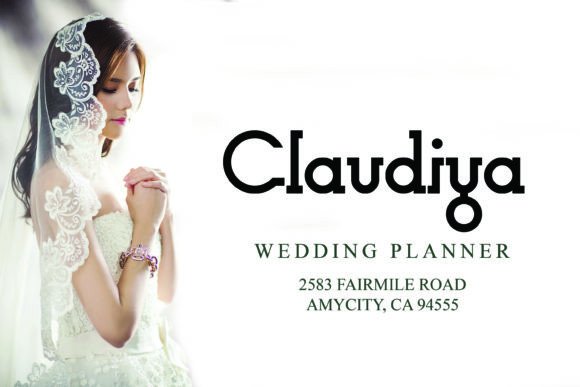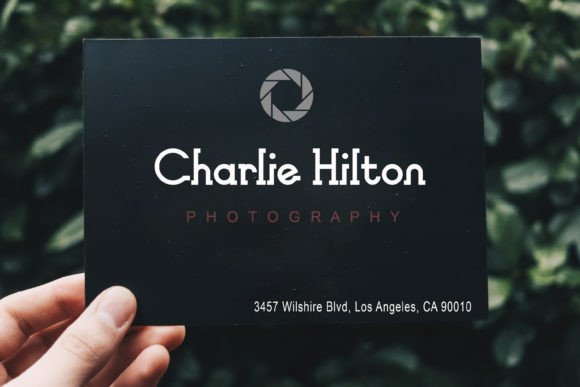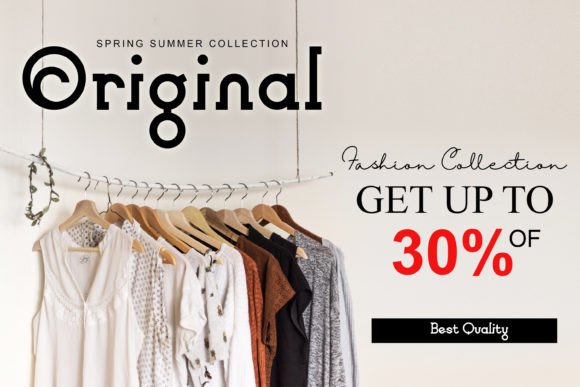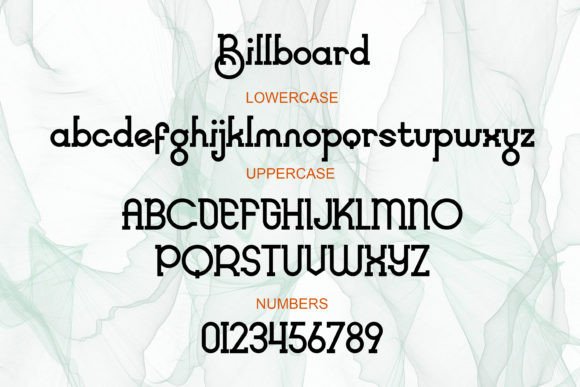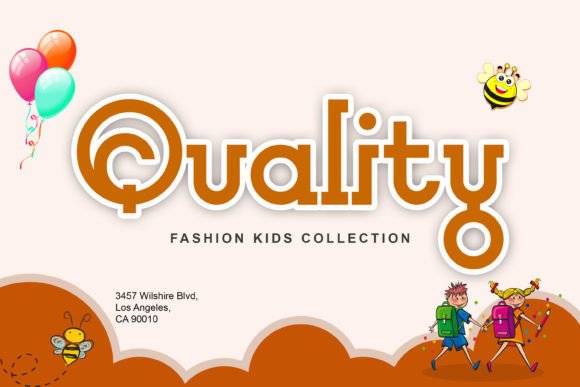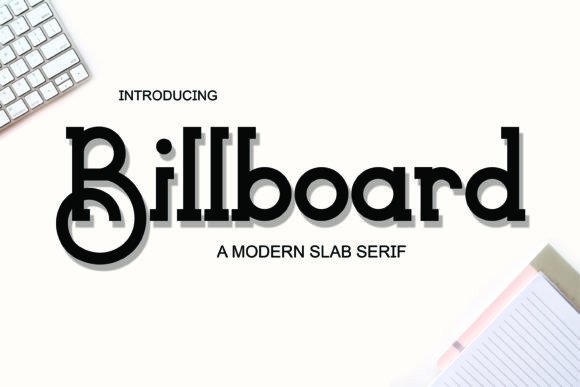
Introducing Billboard Font: Elevate Your Design with Elegance and Class
In the world of typography, the right font can make all the difference in elevating your design from ordinary to extraordinary. If you’re a designer, craftsperson, or simply someone who appreciates the art of beautiful typography, you’re in luck. Billboard Font is a modern, elegant, and classy slab serif typeface that’s perfect for adding a touch of sophistication to your projects.
What is Billboard Font?
Billboard Font is a stunning slab serif typeface designed to make a statement. Its clean lines and smooth curves give it a unique and refined appearance that’s perfect for use as a display font for headings, logos, branding, magazines, product packaging, and invitations. Whether you’re working on a high-end fashion brand, a luxury product, or a special event, Billboard Font is sure to impress.
Key Features of Billboard Font
- Modern and Elegant Design: Billboard Font boasts a sleek and contemporary design that’s perfect for designers looking for a sophisticated typographic solution.
- Clean Lines and Smooth Curves: The font’s clean lines and smooth curves give it a refined and polished appearance that’s sure to elevate your design.
- Slab Serif Typeface: The slab serif design of Billboard Font adds a touch of classic elegance to your project, making it perfect for use in headings, titles, and other display text.
- Versatile: Billboard Font is incredibly versatile and can be used in a wide range of applications, from branding and advertising to packaging and editorial design.
Uses for Billboard Font
Billboard Font is an incredibly versatile typeface that can be used in a variety of contexts. Here are just a few ideas to get you started:
- Headings and Titles: Use Billboard Font to add a touch of elegance to your headings and titles. Its bold and refined design makes it perfect for use in editorials, magazines, and online publications.
- Logo Design: Create a stunning logo for your brand with Billboard Font. Its clean lines and smooth curves make it perfect for use in logotypes and branding applications.
- Product Packaging: Add a touch of luxury to your product packaging with Billboard Font. Its sophisticated design is sure to elevate your product and make it stand out on store shelves.
- Invitations and Stationery: Use Billboard Font to create beautiful invitations, stationery, and other paper goods. Its elegant design makes it perfect for special occasions and formal events.
Why Choose Billboard Font?
With so many fonts to choose from, why should you choose Billboard Font? Here are just a few reasons why Billboard Font stands out from the crowd:
- Unique and Refined Design: Billboard Font boasts a unique and refined design that’s sure to elevate your project and make it stand out.
- Easily Readable: Despite its elegant design, Billboard Font is incredibly easy to read, making it perfect for use in a variety of contexts.
- Highly Versatile: Billboard Font is incredibly versatile and can be used in a wide range of applications, from digital design to print.
In conclusion, Billboard Font is a stunning slab serif typeface that’s perfect for designers, craftspersons, and anyone looking to add a touch of elegance and class to their project. With its clean lines, smooth curves, and refined design, Billboard Font is sure to elevate your design and make it stand out. Whether you’re working on a high-end fashion brand, a luxury product, or a special event, Billboard Font is the perfect choice.